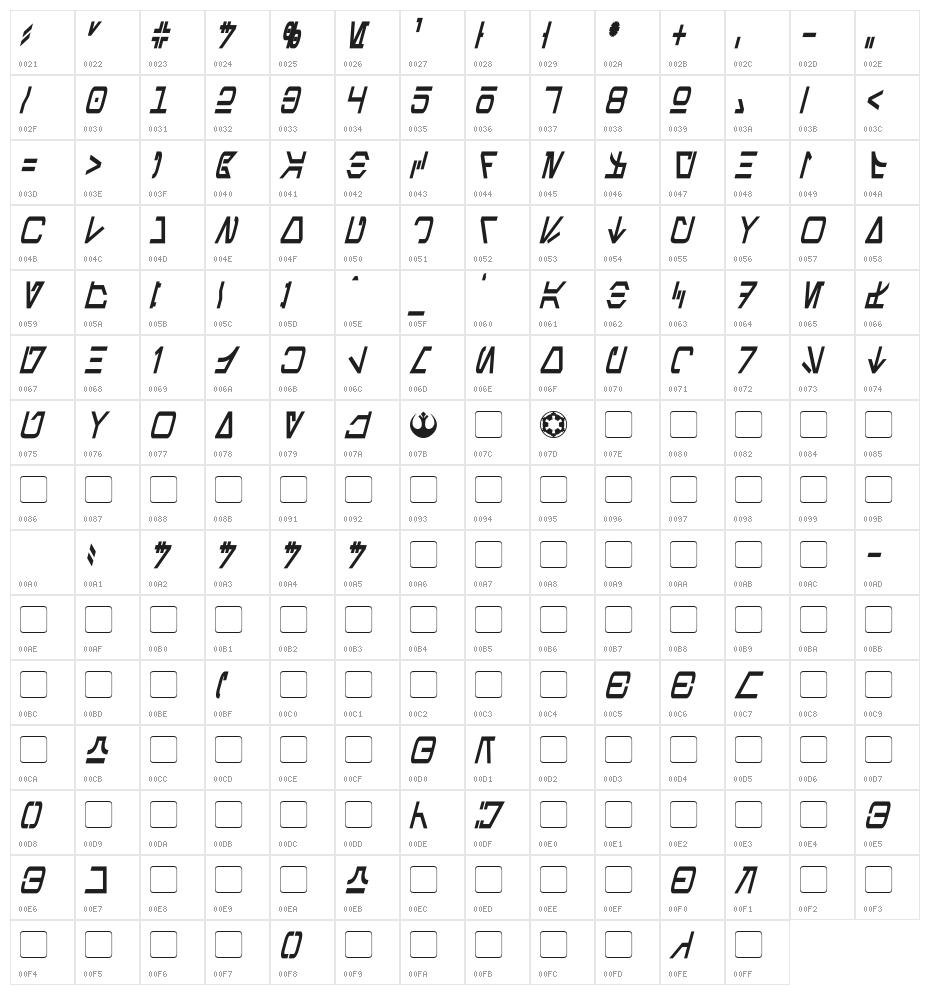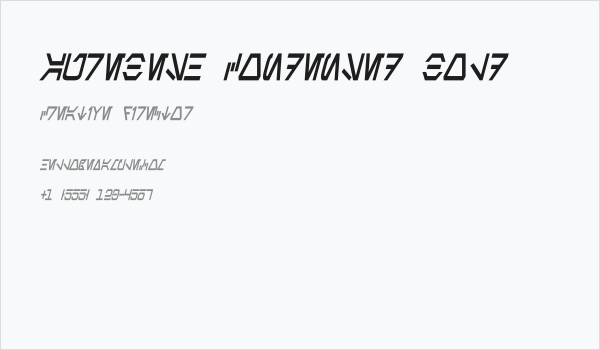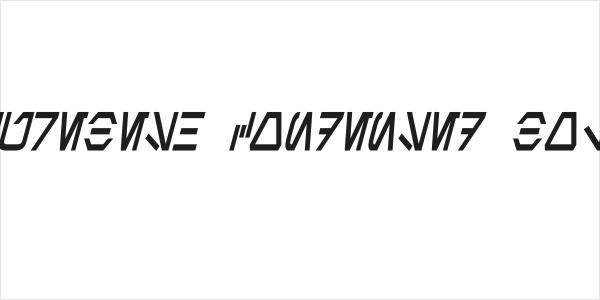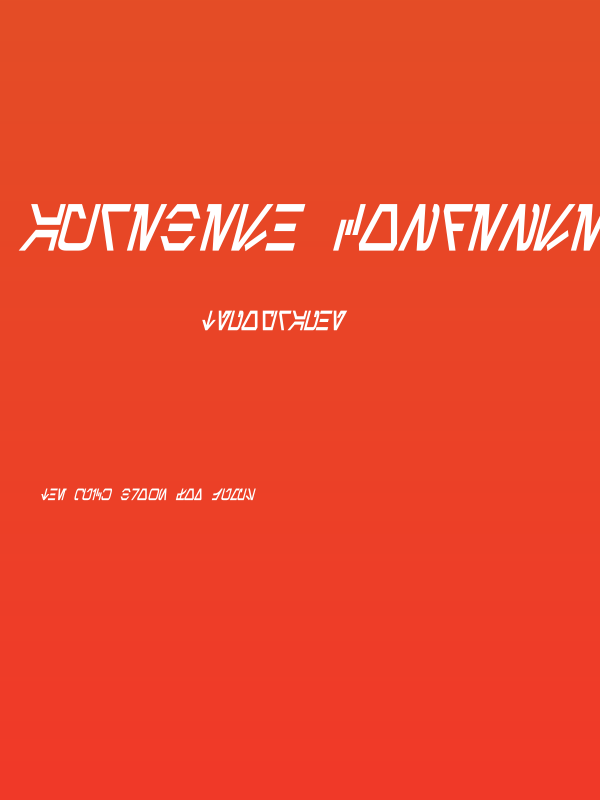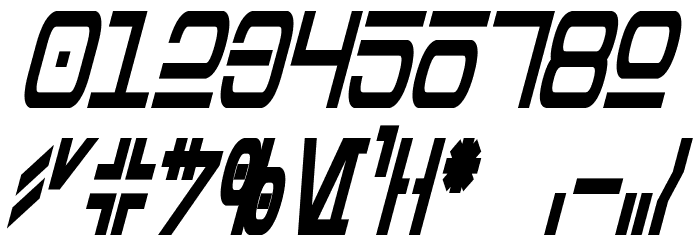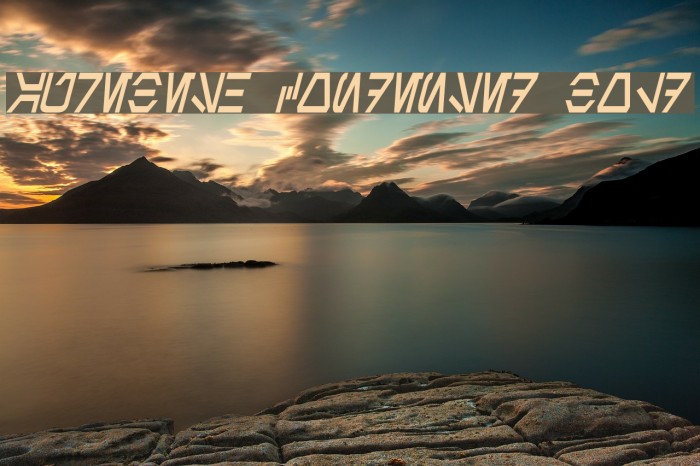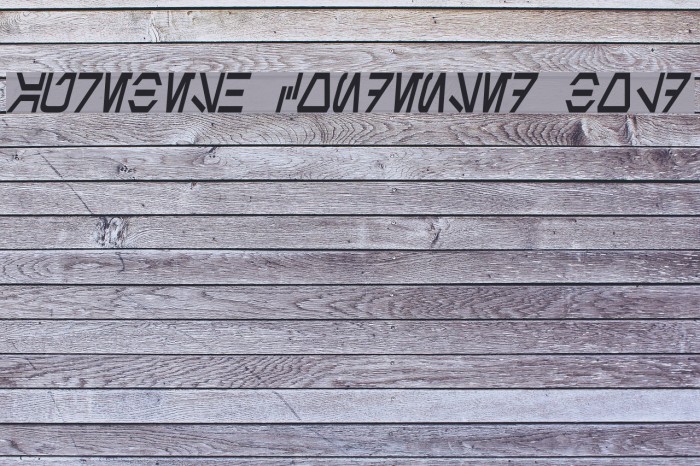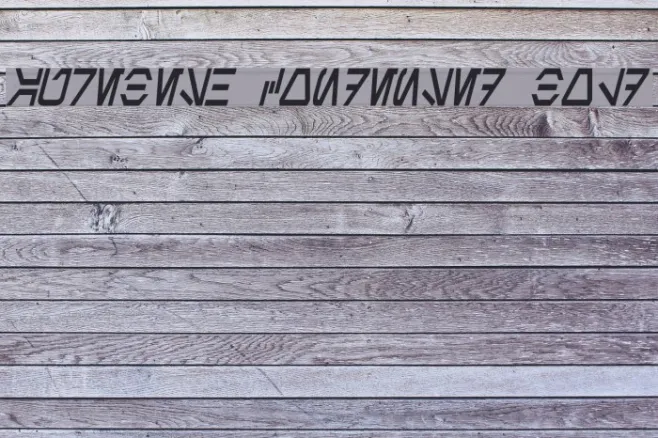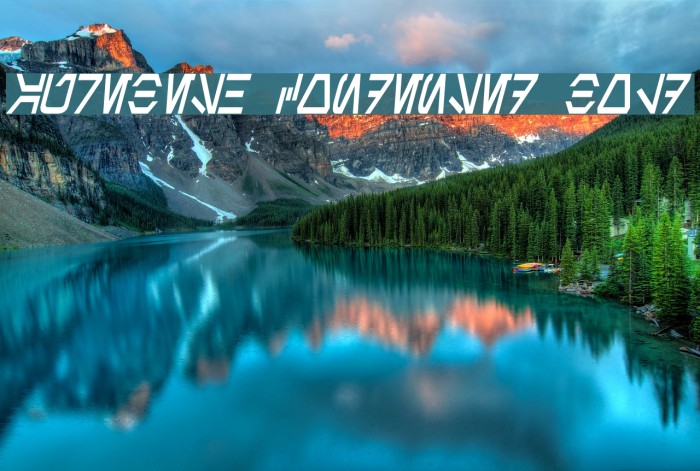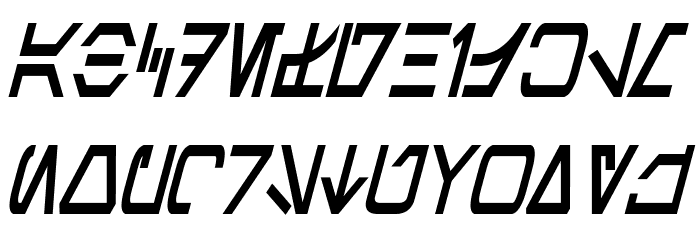
Aurebesh Condensed Bold Font
Aurebesh Condensed Bold Description
This font features a futuristic and angular design, reminiscent of a sci-fi or alien script. The characters are bold and condensed, with sharp edges and a geometric structure. The style is highly stylized, with each letterform appearing unique and distinct, yet maintaining a cohesive visual language. The numerals and special characters follow the same design principles, ensuring consistency across the typeface. This font is ideal for projects that require a modern and unconventional aesthetic, such as video game interfaces, movie titles, or themed event posters.
| Overall Style | Futuristic |
| Use Case | Logos, Headlines, Posters |
| Proposed Projects | Ideal for sci-fi themed designs, video game interfaces, movie titles, and event posters. |